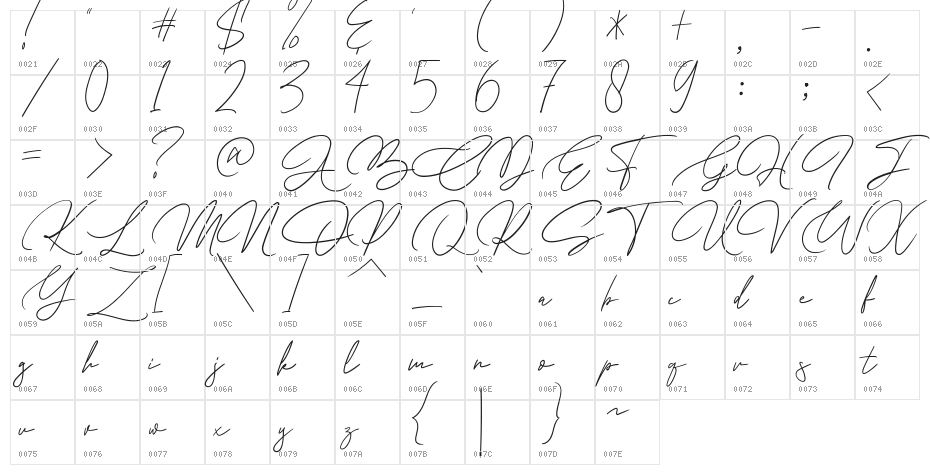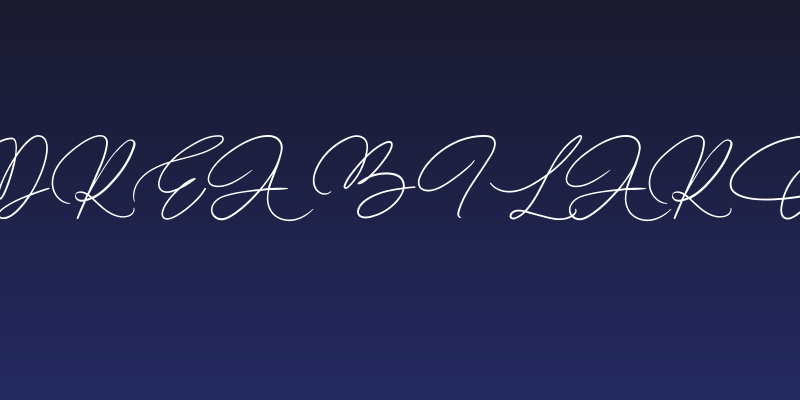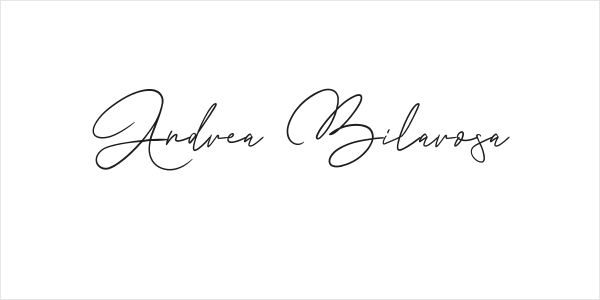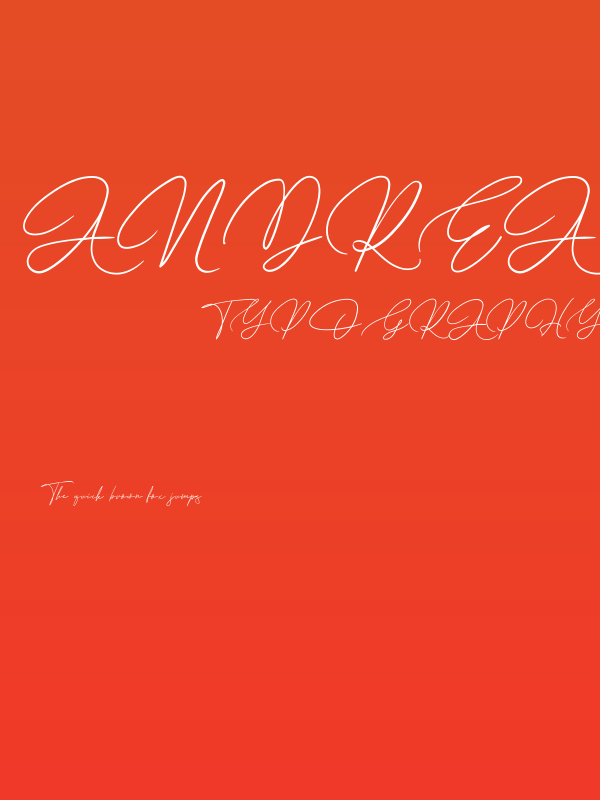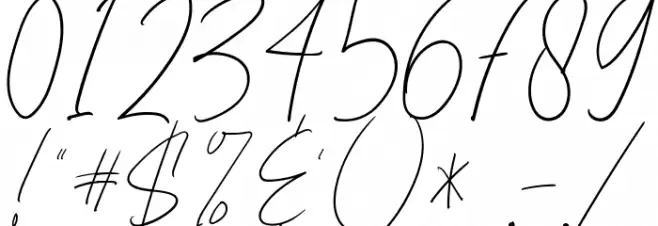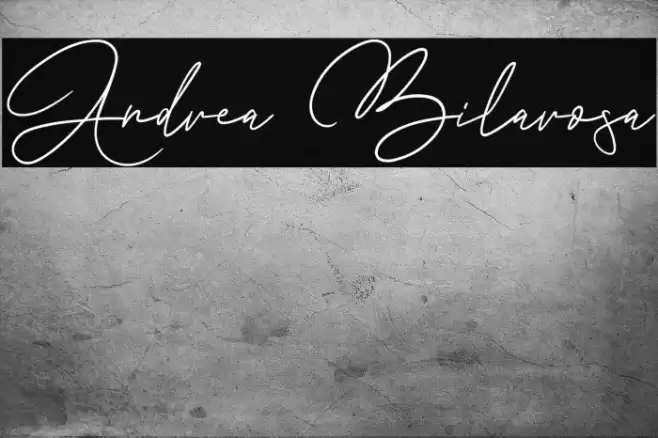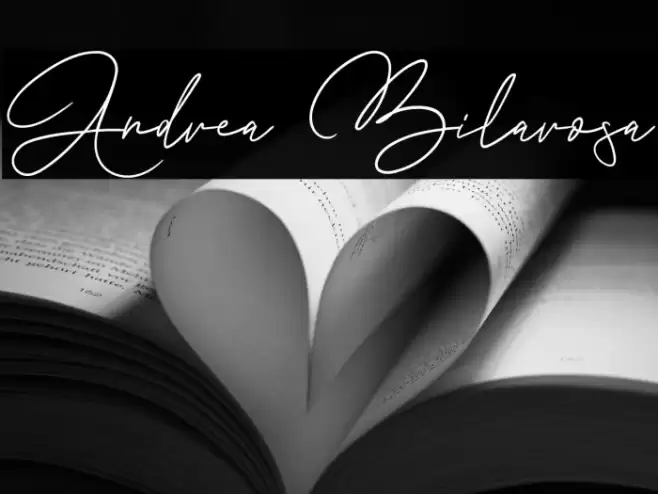
Andrea Bilarosa Font
Andrea Bilarosa Description
This font exudes a sense of elegance and fluidity, characterized by its cursive script style. The letters are interconnected, creating a seamless flow that mimics natural handwriting. The strokes are smooth and consistent, with a slight variation in thickness that adds a touch of sophistication. The uppercase letters are slightly more ornate, while the lowercase letters maintain a graceful simplicity. Numbers and special characters are designed to complement the overall aesthetic, maintaining the same flowing style. This font is perfect for projects that require a personal touch or a sense of refinement.
| Overall Style | Elegant, Handwritten |
| Use Case | Logos, Invitations, Personal Branding |
| Proposed Projects | Ideal for wedding invitations, greeting cards, personal branding, and elegant packaging designs. |